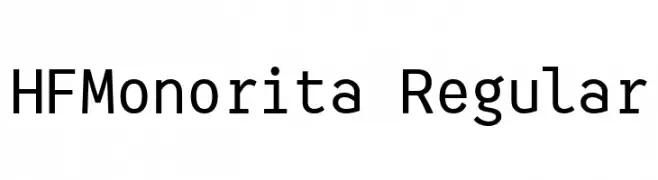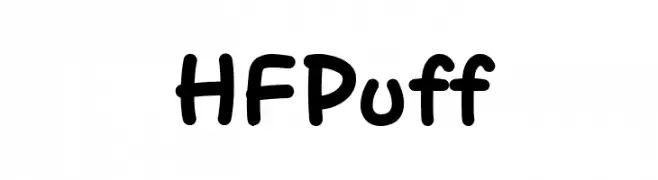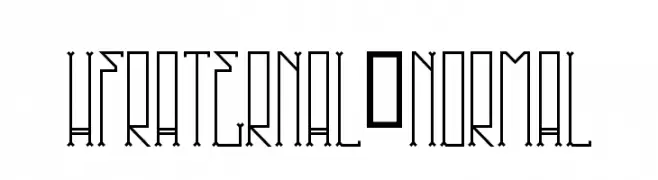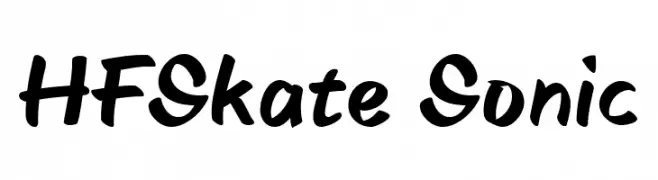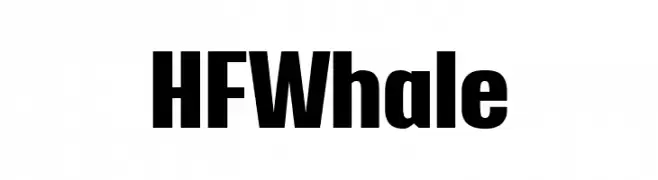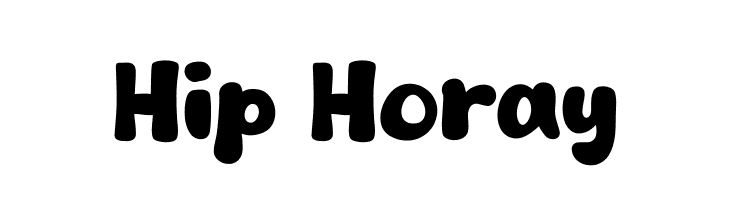
A modern, monospaced font with clean lines and excellent readability.
A modern, monospaced font with a clean and geometric design.
A playful, rounded font with bold, thick strokes and a bubbly style.
A bold, geometric font with sharp angles and a modern aesthetic.
A modern, geometric font with elongated, narrow letterforms and consistent stroke width.
A bold, brush-style font with dynamic and playful strokes.
A bold, geometric font with a three-dimensional shadow effect.
A bold, sans-serif font with a strong, uniform appearance.
A playful, handwritten font with rounded, consistent strokes.